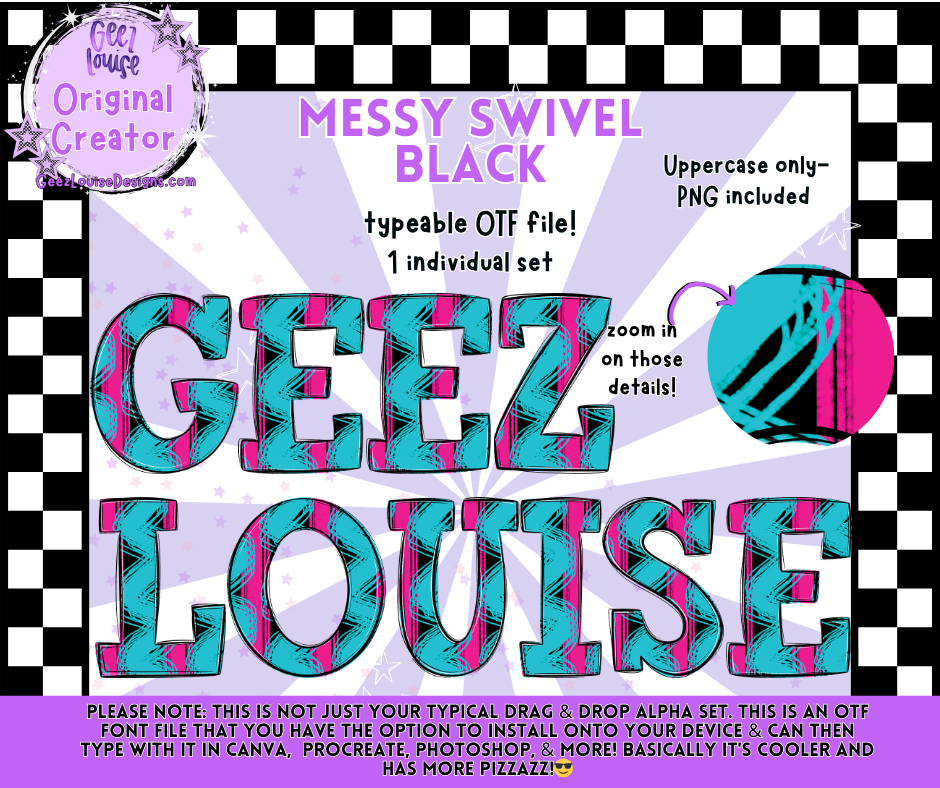
MESSY SWIVEL BLACK — Typeable OTF Alpha Font + PNGs
Edgy, artsy, and full of movement — Messy Swivel Black blends bold patterns with hand‑drawn swirl energy for a look that’s both playful and striking. This typeable OTF font is perfect for creators who love expressive lettering with a modern twist.
Uppercase A–Z
Mixed‑pattern swirl textures
Sharp, print‑ready detailing